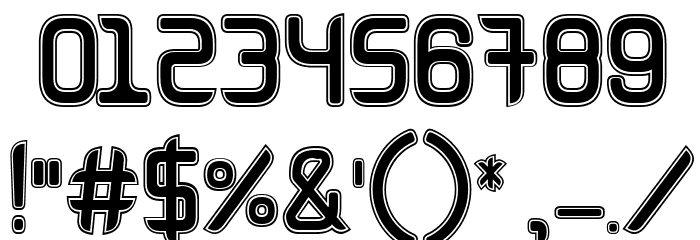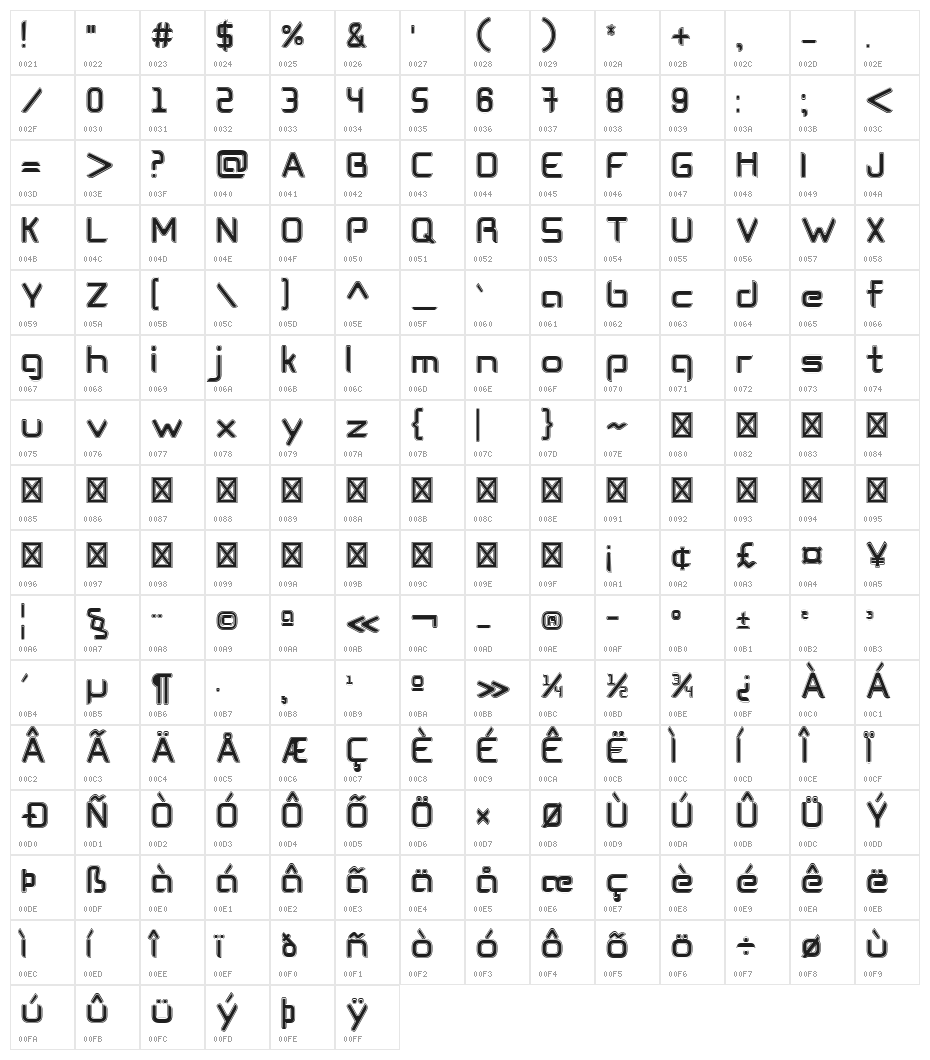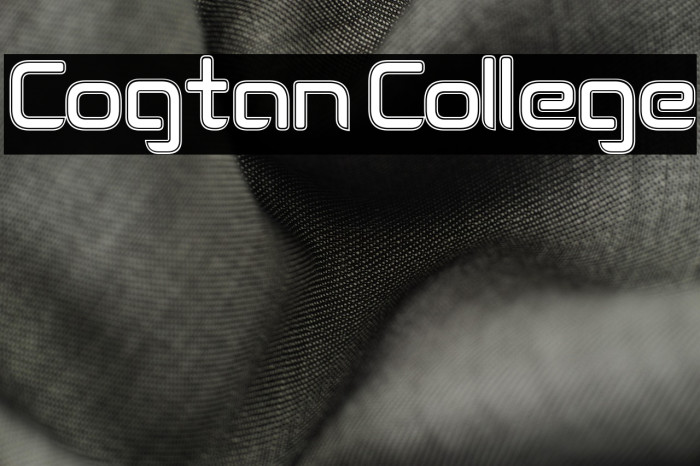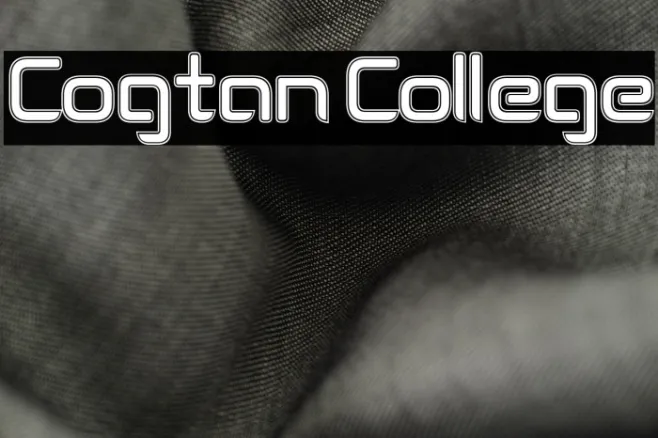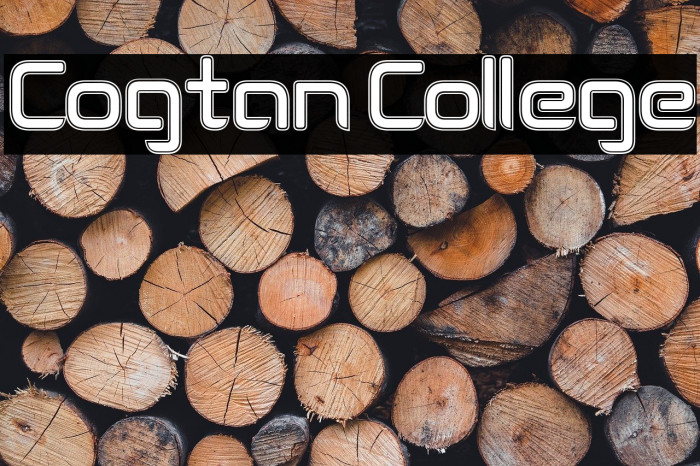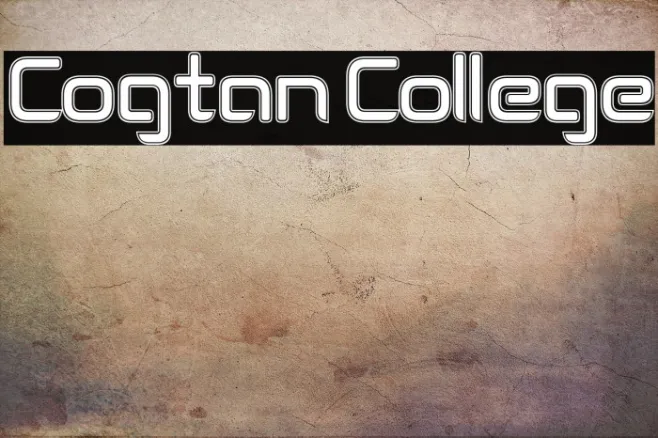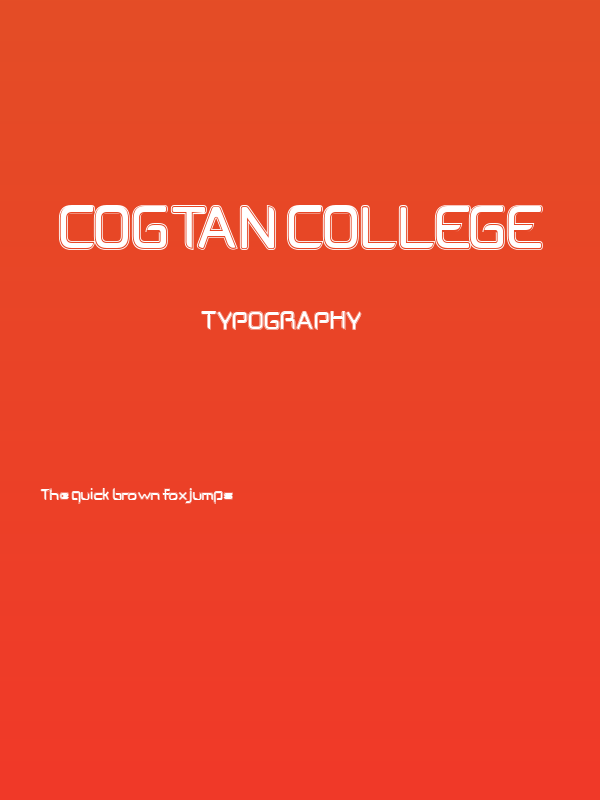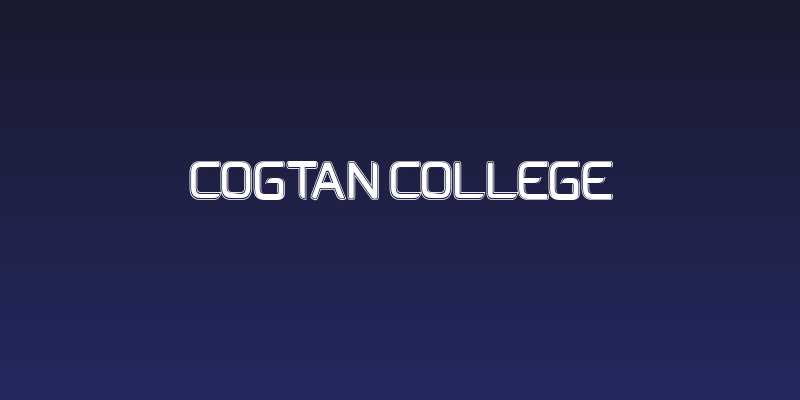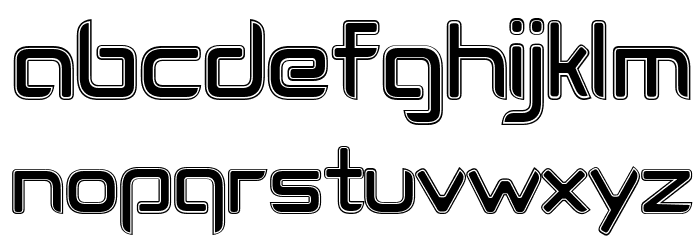
Cogtan College Font
Cogtan College Description
This font features a futuristic and geometric design with a bold outline that gives it a three-dimensional appearance. The characters are constructed with clean, straight lines and rounded edges, creating a sense of modernity and sleekness. The uppercase and lowercase letters maintain a consistent style, with the lowercase being slightly more compact. Numbers and special characters are designed to match the overall aesthetic, ensuring uniformity across all glyphs. The font's distinct style makes it suitable for projects that require a modern and tech-savvy look.
| Proposed Projects | Ideal for technology branding, sci-fi themed designs, video game interfaces, and modern advertising. |